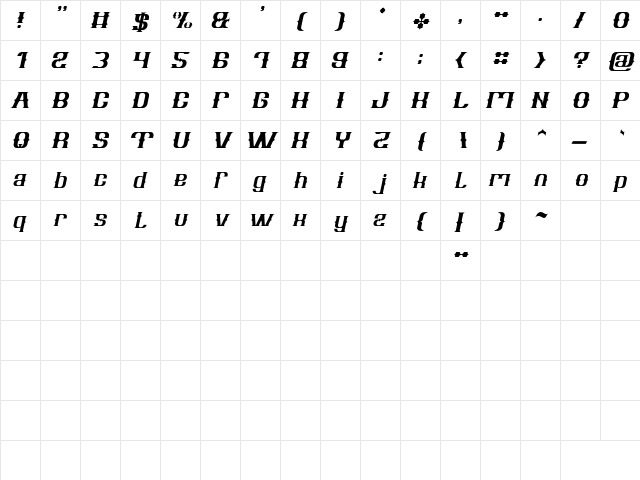
Vintage Postcard Italic
Design Context for Vintage Postcard Typeface
Vintage Postcard has the warm character of retro typography — evoking diners, record sleeves, and the golden age of print advertising. The slanted form adds forward momentum and visual energy.
Font Pairing: Combine Vintage Postcard with a simple slab or neutral sans — period-accurate companions reinforce the vintage feel without competing for attention.
Pro Tip: Use Vintage Postcard for headlines and pull quotes rather than body copy — its personality is best appreciated in short, focused bursts.